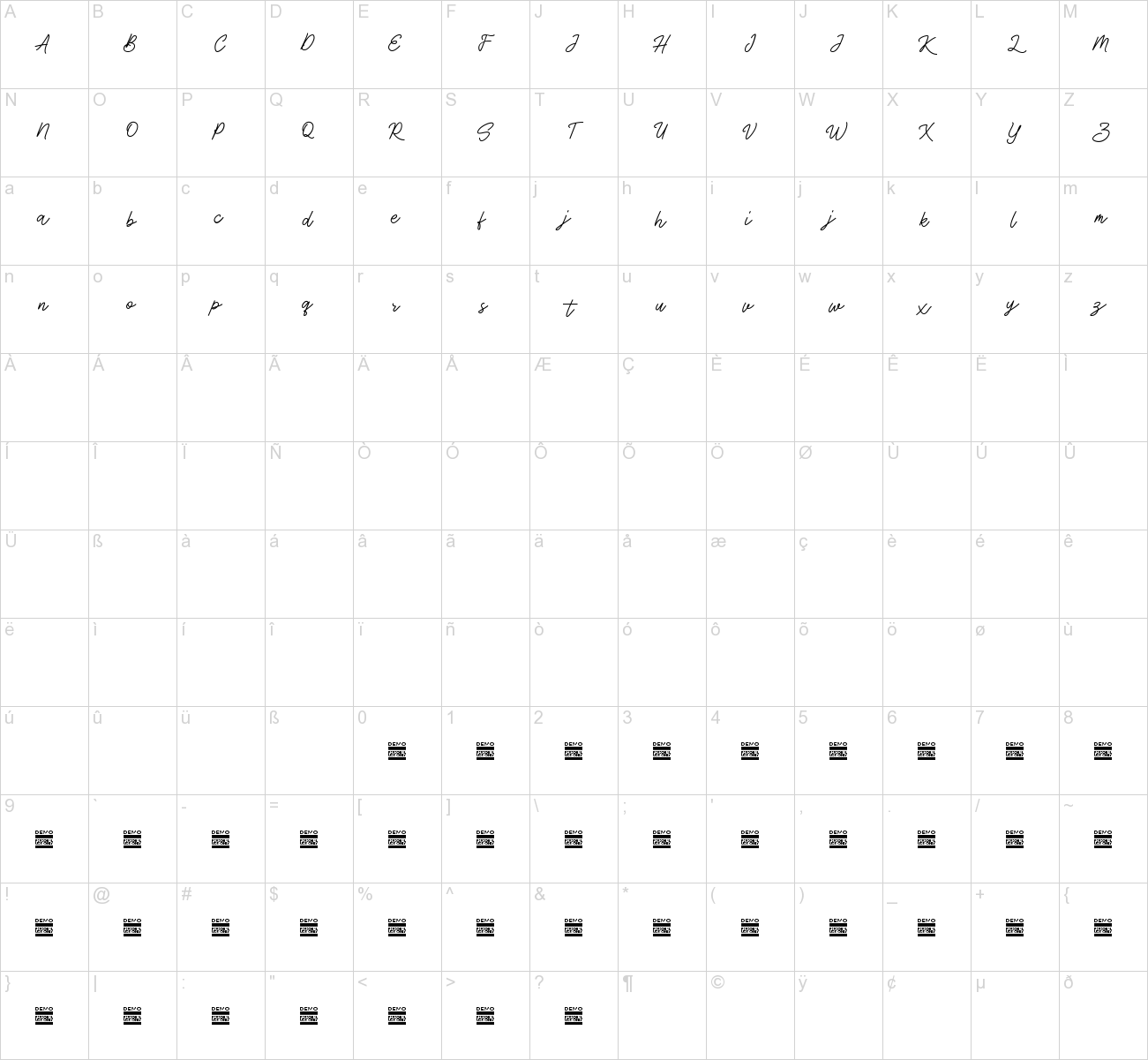
Antique Script Font
Antique is a Classy Monoline font. It suitable for company logo, personal brand, t-shirt, quote poster, packaging, book cover, display design, cards, and any monoline calligraphy needs and more.
Classification: | Calligraphy Fonts, Handwritten Fonts, Script Fonts |